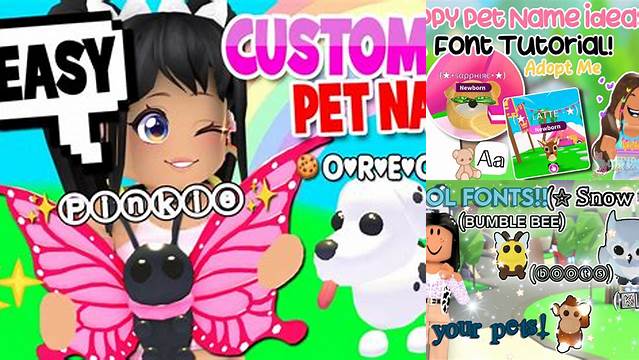
Cool Fonts For Adopt Me Pets: A Naming Guide
Hey there, fellow Adopt Me enthusiasts! Ever wondered how some players manage to get those super cool and unique fonts for their pet's names? It's a fantastic way to make your furry (or scaly, or feathery) friend stand out in the bustling world of Adopt Me. Naming your pet in Adopt Me is more than just slapping on a label; it’s about giving them an identity, a personality, and sometimes, a touch of flair. Using special fonts is like adding that extra bit of sparkle to their persona. But how exactly do you achieve this magical feat? Well, you've come to the right place! This guide will walk you through the process, step-by-step, so you can jazz up your pet's name and make them the talk of the Adoption Island.
Why Use Special Fonts for Your Pet's Name?
Before we dive into the "how," let's quickly touch on the "why." Unique fonts can add a whole new level of personality to your pet. Imagine naming your fierce-looking dragon with a bold, fiery font, or your cute bunny with a whimsical, bubbly one. The possibilities are endless! It’s not just about aesthetics, though. Using a special font can also help your pet stand out in a crowd, making them easily recognizable during trades or when you're showing them off at the pet park. Plus, let's be honest, it just looks plain awesome. In a game where customization is key, special fonts are another way to express your creativity and make your pet truly your own. It's a fun way to inject some personality into the game and show off your unique style. Think of it as giving your pet a digital makeover – a small change that makes a big impact. So, if you're looking to add that extra oomph to your pet's name, special fonts are the way to go. They're a simple yet effective way to elevate your pet's look and make them a star in Adopt Me.
Understanding Adopt Me's Naming System
Alright, before we jump into the font-tastic world of pet names, it's crucial to understand how Adopt Me's naming system works. Adopt Me, like many online games, has certain limitations and rules in place when it comes to naming your pets. This is primarily to ensure a safe and enjoyable environment for all players. The game has filters that prevent the use of inappropriate language or offensive terms in pet names. So, while you might have a super creative name in mind, the game might not allow it if it contains certain words or phrases. Additionally, Adopt Me's naming system has character limits. You can't write a novel as your pet's name, unfortunately! There's a maximum number of characters you can use, which means you need to be concise and creative. This limit applies to special fonts as well, so you'll need to make sure your chosen name, even with its fancy font, fits within the character limit. Now, when it comes to fonts, Adopt Me doesn't have a built-in font selection tool like a word processor. This is where the clever workaround comes in, which we'll discuss in the next section. Understanding these limitations is key to successfully naming your pet with a special font. You need to be mindful of the language filter, character limit, and the fact that you'll be using external tools to generate these fonts. But don't worry, it's all quite straightforward once you get the hang of it! Knowing the rules of the game allows you to play within them and still create a unique and memorable name for your beloved pet.
Tools and Websites for Generating Special Fonts
Okay, guys, this is where the magic happens! Since Adopt Me doesn't have a built-in font selector, we need to get a little creative and use some external tools. Thankfully, the internet is brimming with websites and apps that can generate fancy fonts for you. These tools work by using Unicode characters, which are a vast library of symbols and letters that go beyond the standard alphabet. Many of these tools are super user-friendly and require no technical expertise whatsoever. You simply type in your desired name, and the website generates a variety of fonts for you to choose from. It's like having a personal font designer at your fingertips! Some popular websites you might want to check out include LingoJam, Cool Font, and Font Generator. These sites offer a wide range of fonts, from bold and blocky to cursive and whimsical. Each site has its own unique selection, so it's worth exploring a few to find the perfect font for your pet. When using these tools, it's important to keep in mind Adopt Me's naming limitations. Make sure the generated name, including the special font, fits within the character limit. Also, double-check that the font is legible and easy to read. A super fancy font might look cool, but if it's difficult to decipher, it might not be the best choice. So, experiment with different fonts, try out various websites, and find the one that perfectly captures your pet's personality. With these tools, you'll be able to transform your pet's name from ordinary to extraordinary in just a few clicks. Get ready to unleash your inner font artist!.
Step-by-Step Guide to Changing Your Pet's Font in Adopt Me
Alright, let's get down to the nitty-gritty! Here’s a step-by-step guide on how to change your pet's font in Adopt Me and give them that special flair. Follow these instructions, and you'll have your pet sporting a stylish new name in no time:
- Choose Your Font Generator: First things first, head over to one of the font generator websites we mentioned earlier (like LingoJam, Cool Font, or Font Generator). Open it up in your web browser – you can even do this on your phone or tablet if that's easier.
- Type Your Pet's Name: Once you're on the website, you'll usually see a text box where you can type your pet's name. Go ahead and type the name you want to use for your pet, keeping in mind the character limit in Adopt Me.
- Browse the Fonts: Now, the fun part! The website will generate a bunch of different fonts based on your input. Scroll through the options and see what catches your eye. Remember to consider your pet's personality and the vibe you're going for.
- Copy the Font: Once you've found a font you love, simply copy the text in that font. Most websites have a convenient "copy" button, or you can manually select the text and use your device's copy function (Ctrl+C or Cmd+C on a computer, or a long press on a mobile device).
- Open Adopt Me: Now, switch over to Adopt Me and get ready to rename your pet.
- Rename Your Pet: Find the pet you want to rename and click on it. You should see an option to rename your pet. Click on that.
- Paste the Font: In the renaming text box, paste the font you copied from the website (Ctrl+V or Cmd+V on a computer, or a long press and select "paste" on a mobile device).
- Final Check and Confirm: Double-check that the name looks right and fits within the character limit. Once you're happy with it, confirm the name change. Voila! Your pet now has a snazzy new name with a special font.
And that's it! You've successfully changed your pet's font in Adopt Me. Give yourself a pat on the back! This process might seem a little tricky at first, but once you've done it a couple of times, it'll become second nature. So, go ahead and experiment with different fonts and create some unique names for all your pets.
Tips for Choosing the Perfect Font
Choosing the perfect font for your pet's name is like picking out the perfect outfit – it needs to match their personality and style! Here are a few tips to help you nail that font-tastic look:
- Consider Your Pet's Personality: Is your pet a fierce dragon, a cuddly bunny, or a mischievous monkey? The font you choose should reflect their unique character. A bold, edgy font might suit a dragon, while a soft, cursive font could be perfect for a bunny.
- Legibility is Key: While it's tempting to go for the most elaborate font you can find, make sure it's still easy to read. A super fancy font might look cool, but if other players can't decipher your pet's name, it defeats the purpose. Opt for fonts that are stylish yet legible.
Show Off Your Stylish Pet!
Congratulations, guys! You've successfully learned how to put fonts on your pet's name in Adopt Me. Now it's time to unleash your creativity and give your pets some stylish makeovers. Remember, it's all about expressing your unique style and making your pets stand out from the crowd. So go ahead, experiment with different fonts, and create some eye-catching names that will turn heads in the Adoption Island. Don't forget to show off your newly styled pets to your friends and other players. Share your creations on social media, participate in pet pageants, or simply strut your stuff in the pet park. Let your pets be the stars they were meant to be! And most importantly, have fun with it. Naming your pets is a creative and enjoyable process, so embrace it and let your imagination run wild. With the power of special fonts, you can transform your pets into true fashion icons in the Adopt Me universe. So go forth and style your pets with confidence and flair. The world is your runway!